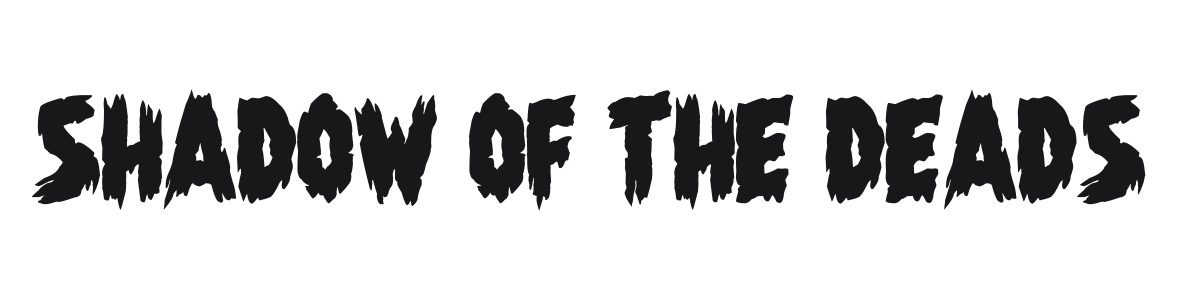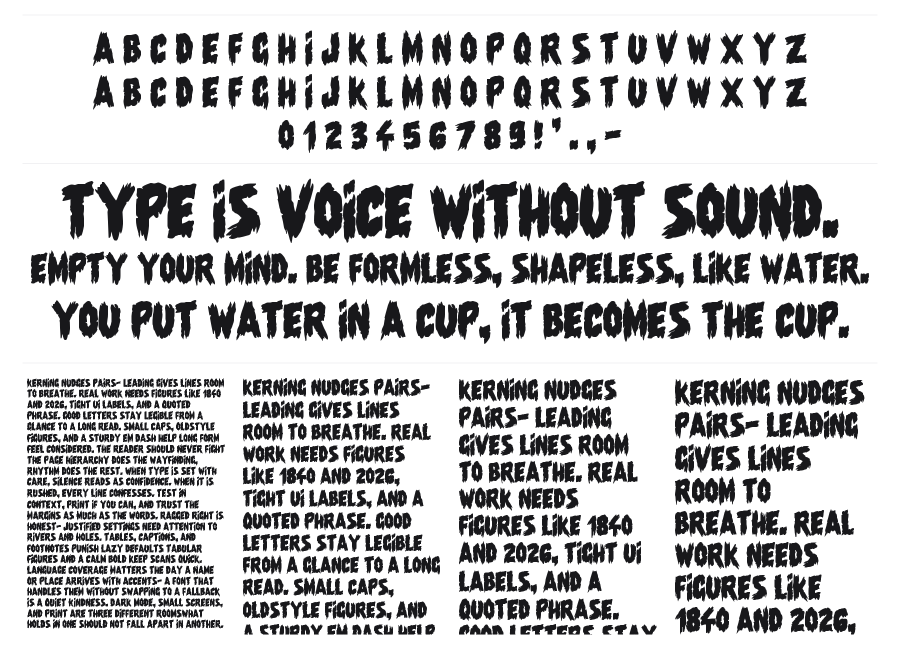
Shadow Of The Deads
Shadow Of The Deads is a heavy horror display font with ragged, torn edges that look ripped straight from a B-movie title sequence. Every character is thick and bold but broken at the contours, giving the impression of decayed or shredded material. It works at large sizes for posters, album covers, and anything that needs an immediate sense of dread.